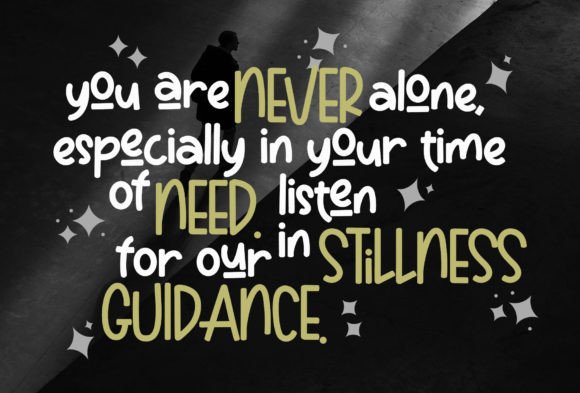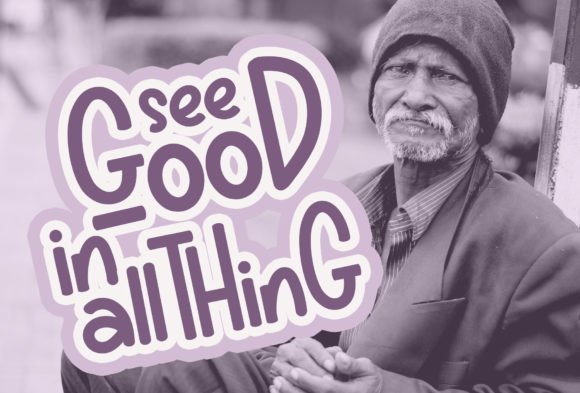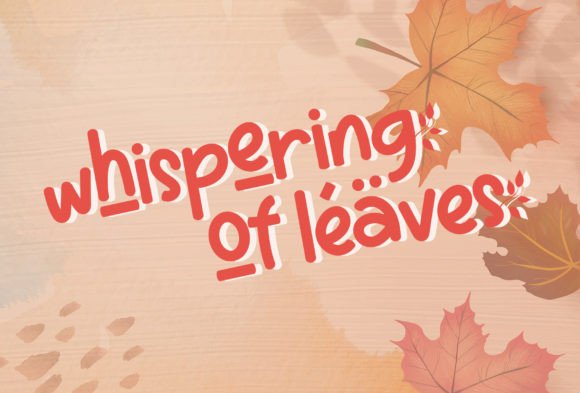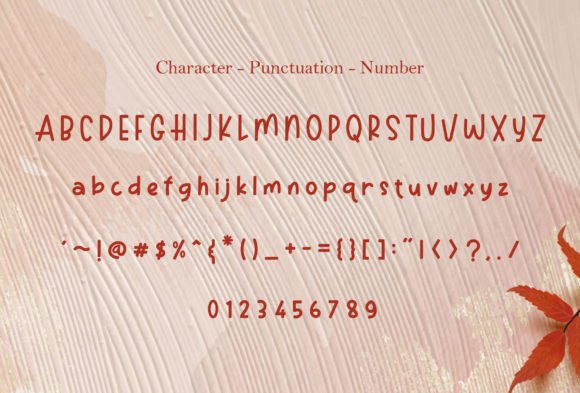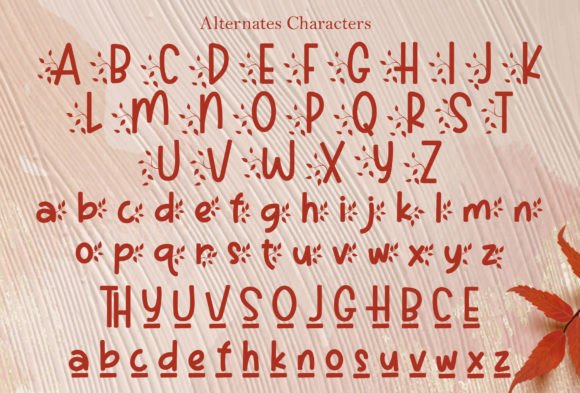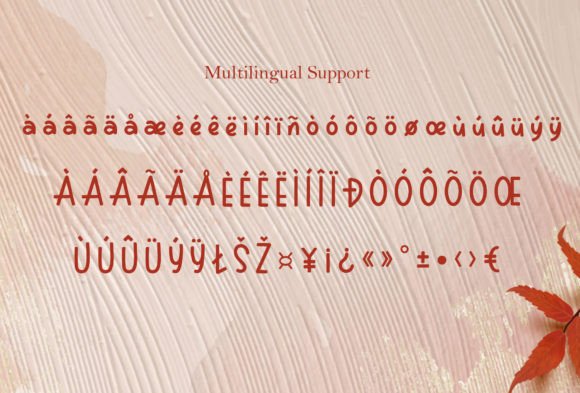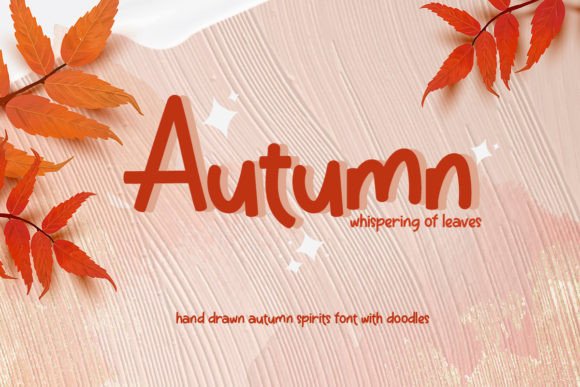
The Magic of Autumn Font: Elevate Your Designs with a Hand-Drawn Twist
I’ll never forget the time I was working on a project for a client who wanted a unique, autumn-themed design. I had spent hours browsing through font libraries, but nothing seemed quite right. That was until I stumbled upon Autumn Font, a hand-drawn autumn spirits font that completely transformed my design. In this article, I’ll share my experience with Autumn Font, its features, and how to make the most of it in your designs.
A Personal Review: What I Love About Autumn Font
Autumn Font has become a staple in my design toolkit, and for good reason. Here are some things I love about it:
- ✨ Unique and quirky character set that’s perfect for autumn-themed designs
- ✅ Hand-drawn feel that adds a touch of warmth and personality to any design
- 💫 Excellent for display text, quotes, and social media graphics
- 🎨 Highly versatile and can be used for a wide range of creative projects
While Autumn Font is an excellent choice for many designs, there are a few things to keep in mind:
- ⚠️ Some characters may not be suitable for body text or reading-heavy content
- 🤔 Limited availability of certain diacritical marks or special characters
Autumn Font was designed with the intention of capturing the essence of autumn in a unique and creative way. The designer, inspired by the changing leaves and cozy atmosphere of the season, crafted a font that would evoke feelings of warmth and nostalgia.
- Q: What type of designs is Autumn Font best suited for?
- A: Autumn Font is perfect for autumn-themed designs, greeting cards, social media graphics, and quotes.
- Q: Is Autumn Font available in different weights or styles?
- A: Currently, Autumn Font is available in a single weight. However, the designer may release additional weights or styles in the future.